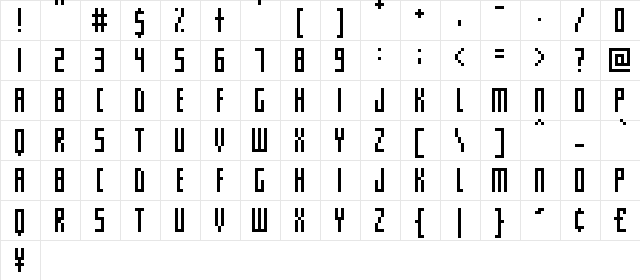
Slim thin pixelettes Regular
| Designer | Darrell Flood |
Design Context for Slim thin pixelettes Typeface
Slim thin pixelettes is rooted in pixel-grid construction, making it a natural fit for game UI, retro computing aesthetics, and digital nostalgia projects.
Well-suited to indie game interfaces, retro computing aesthetics, and pixel art-adjacent design work.
Pro Tip: Use Slim thin pixelettes at sizes that align with its pixel grid for the sharpest rendering — scaling to non-integer multiples can introduce unwanted blur.